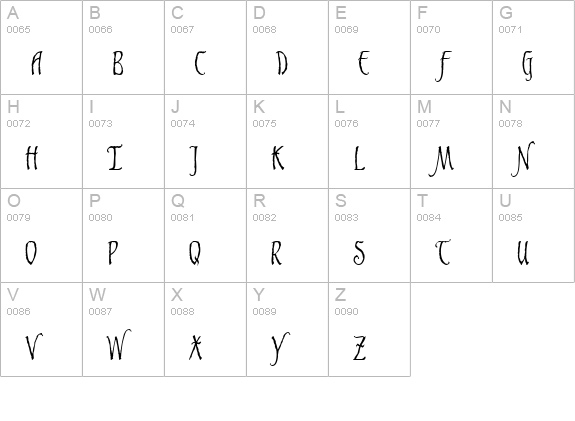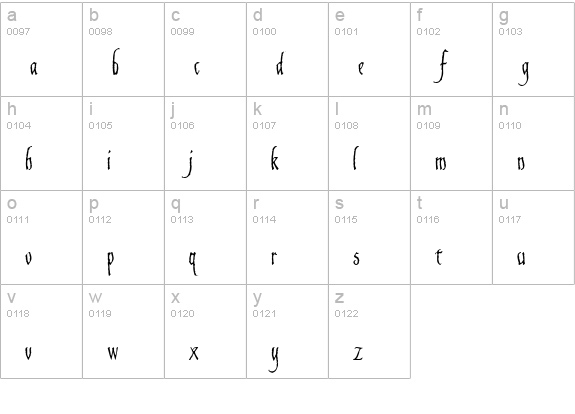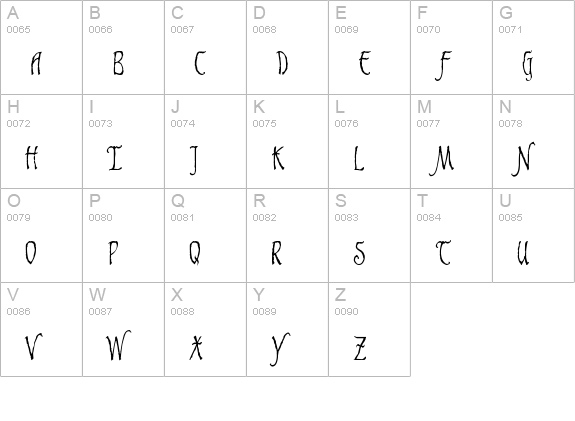
Gaiseric Demo Font Details
Gaiseric Demo font is a unique and captivating typeface that combines modernity with a touch of vintage charm. Its clean lines and intricate details make it a perfect choice for a wide range of design projects, from logos and branding to packaging and headlines. With its bold and eye-catching appearance, Gaiseric Demo font is sure to grab attention and leave a lasting impression. Whether used in print or digital media, this font adds a sense of sophistication and elegance to any layout. One of the best things about Gaiseric Demo font is that it is available for free. That's right, you can download this stunning font without spending a dime. Simply head over to FontsMarket.com, where you will find Gaiseric Demo font among a vast collection of other free fonts. Designed with versatility in mind, Gaiseric Demo font is suitable for both personal and commercial use. Whether you're working on a professional project or simply want to add a stylish touch to your personal designs, this font has got you covered. Don't miss out on the opportunity to enhance your designs with the beauty and uniqueness of Gaiseric Demo font. Download it for free today at FontsMarket.com and let your creativity soar.